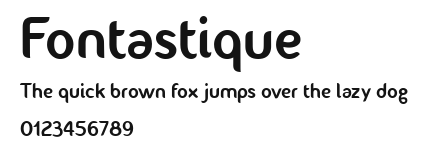
Fontastique Preview
• Font Name: Fontastique
• Font Style: Fontastique
• Full Font Name: Fontastique Fontastique
• Designer: Beno”t Sj™holm
• Manufacturer: Beno”t Sjšholm
About Fontastique.ttf
Fontastique.ttf is a modern, elegant sans-serif font designed for ultimate readability and visual harmony. Perfect for branding, headlines, web design, and print materials.